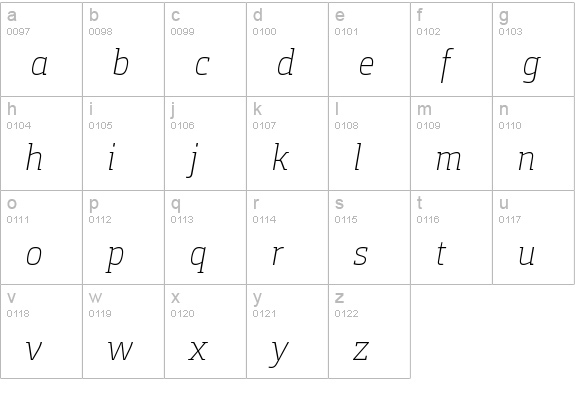
Foral Pro Light Italic is a refined, elegant, italic variant in the Foral typeface family \xE2\x80\x94 well suited to elegant body text, refined sub-headings, and luxury branding.
Foral Pro Light Italic font is a refined and elegant typeface that exudes sophistication and modernity. Its delicate curves and slanted design create a sense of grace and fluidity, making it perfect for adding a touch of sophistication to any design project. The light weight of the font adds a subtle elegance, while the italic style adds a dynamic flair. What makes Foral Pro Light Italic font even more appealing is that it is available for free download at FontsMarket.com. This means that you can easily access this beautiful font for your personal or commercial projects without any cost. Whether you are designing a website, creating a logo, or working on a publication, Foral Pro Light Italic font is a versatile and stylish choice that will elevate your design to the next level. Download it today and add a touch of sophistication to your creations.